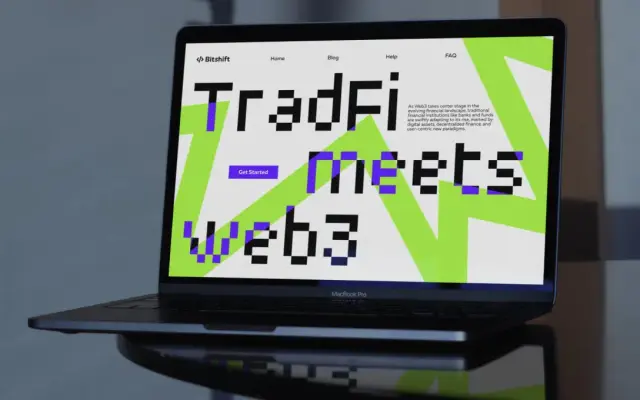
Pixer
A single-weight pixel display font by Nikolay Petroussenko, built from a strict grid of squares in the manner of 1970s arcade game bitmap lettering.
Designed in 2020 and offered free by Fontfabric, Pixer draws its structure from the bitmap fonts of early video game hardware, referencing titles like Space Invaders as a touchstone. The all-pixel construction is optimised to read cleanly at both low and high screen resolutions, and OpenType standard ligatures are included. Suited to gaming interfaces, retro-themed branding and digital advertising that calls for an overtly nostalgic register.
Constructed entirely from square pixels in the tradition of early bitmap fonts, Pixer is firmly a display typeface evoking 1970s arcade game aesthetics rather than any conventional serif or sans-serif classification.